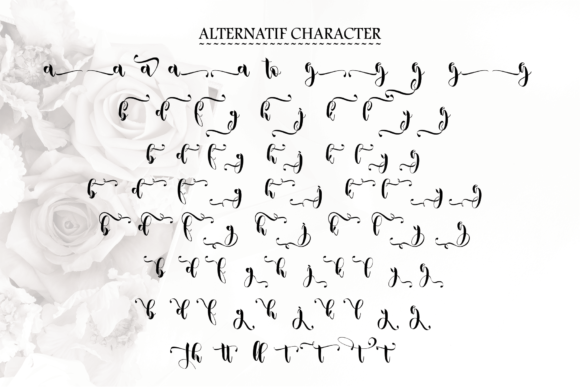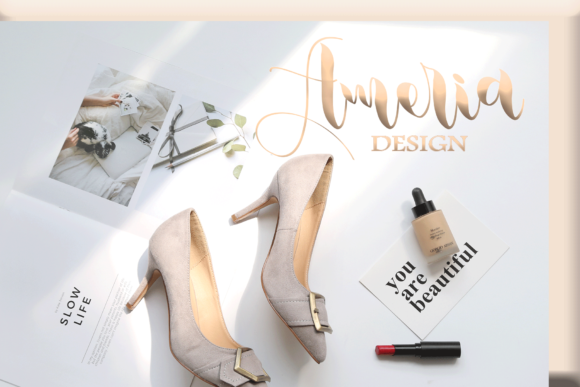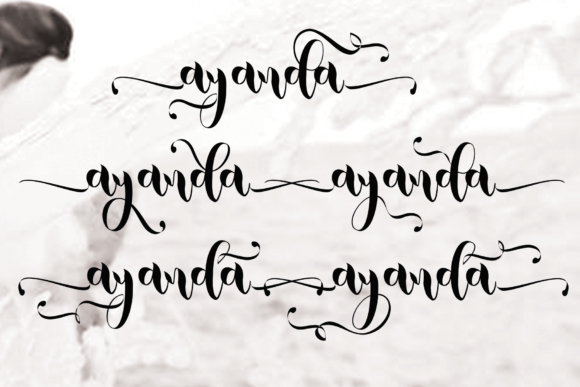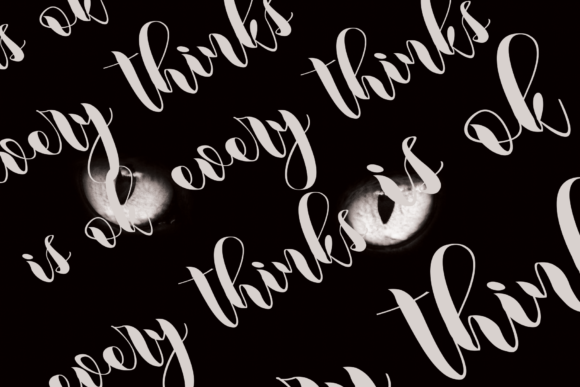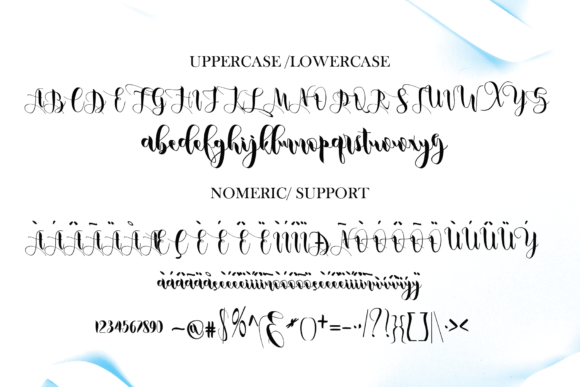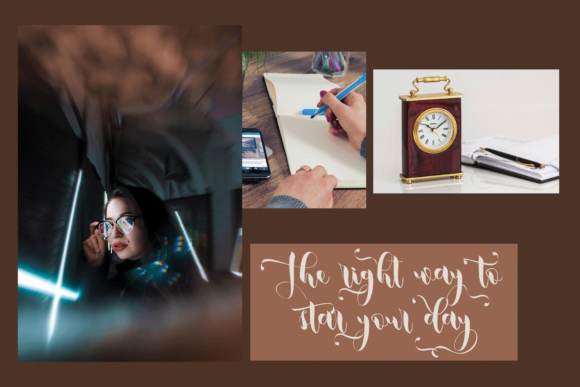
HomeScript FontsMetic Font Script Fonts Metic Font FacebookXPinterestWhatsApp Metic Font Poster 2 Metic Font Poster 3 Metic Font Poster 4 Metic Font Poster 5 Metic Font Poster 6 Metic Font Poster 7 About Metic Font Metic is a lovely script font with classic style. Fall in love with its playful look & feel! DOWNLOAD NOW People also explored Winter Sunday Font Angel Baby Font Callistro Font Hello Spring Font Wall Font Space Cake Font Patricia Wilcie Font Busted Pen Font Zamanie Font 381 0 TagsMetic Font Previous articleRahayu Script FontNext articleEdore Font LEAVE A REPLY Cancel reply Comment: Please enter your comment! Name:* Please enter your name here Email:* You have entered an incorrect email address! Please enter your email address here Website: Save my name, email, and website in this browser for the next time I comment. Personal Use Free Romansya Personal Use Free Read more about this font BD Spinner Personal Use Free Read more about this font Alinda Personal Use Free Read more about this font Muthiara Font Personal Use Free Read more about this font BLOG How to Cut Any Font on Cricut: Convert a Font to SVG (Free) Turn any font into a clean SVG so it cuts crisp on Cricut - a quick 3-step workflow using a free font-to-SVG tool. Transform Your Website: Elevate Your Typography with 7 Best Web Font Generators Top 10 Handwritten Fonts That Elevate Your Designs 5 Fonts That Will Dominate Design Trends in 2026